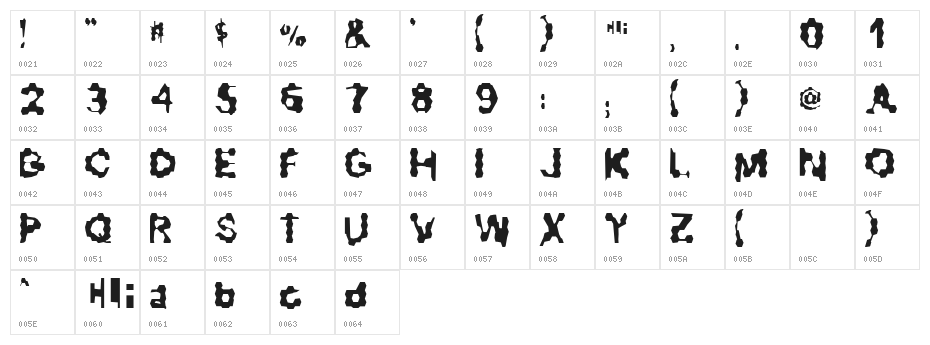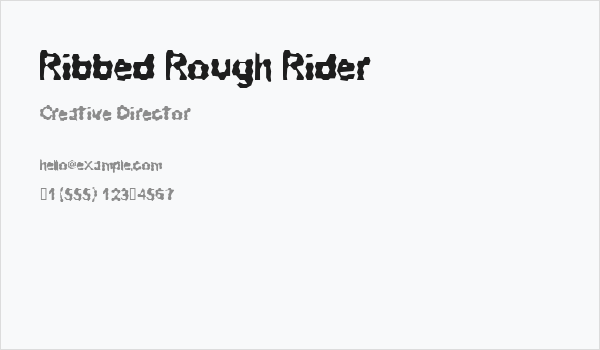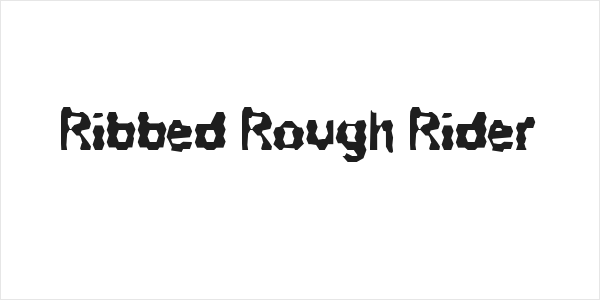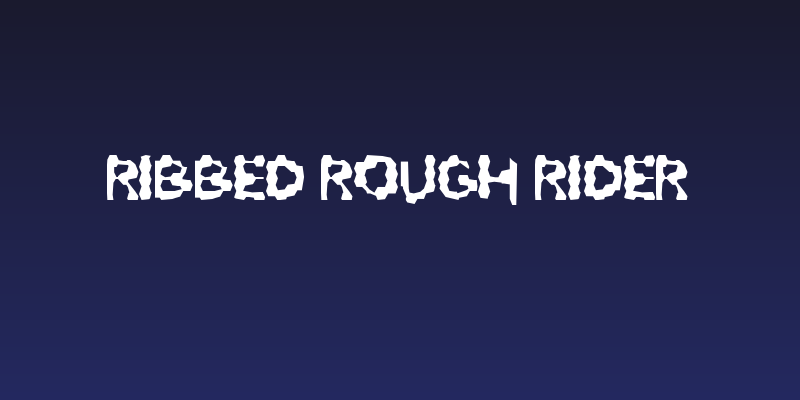
Ribbed Rough Rider Font
Ribbed Rough Rider Description
This font features a rugged, textured appearance with irregular edges, giving it a distinctly rough and organic feel. The characters are bold and heavily stylized, with a unique, jagged outline that suggests a hand-carved or distressed look. The uppercase and lowercase letters maintain a consistent style, with the uppercase being slightly more pronounced. Numbers and special characters follow the same design ethos, ensuring a cohesive visual identity. The font's boldness and distinctive style make it stand out, ideal for projects that require a strong, impactful visual statement.
| Proposed Projects | Ideal for posters, album covers, branding for outdoor or adventure-themed products, and any design needing a bold, rustic touch. |